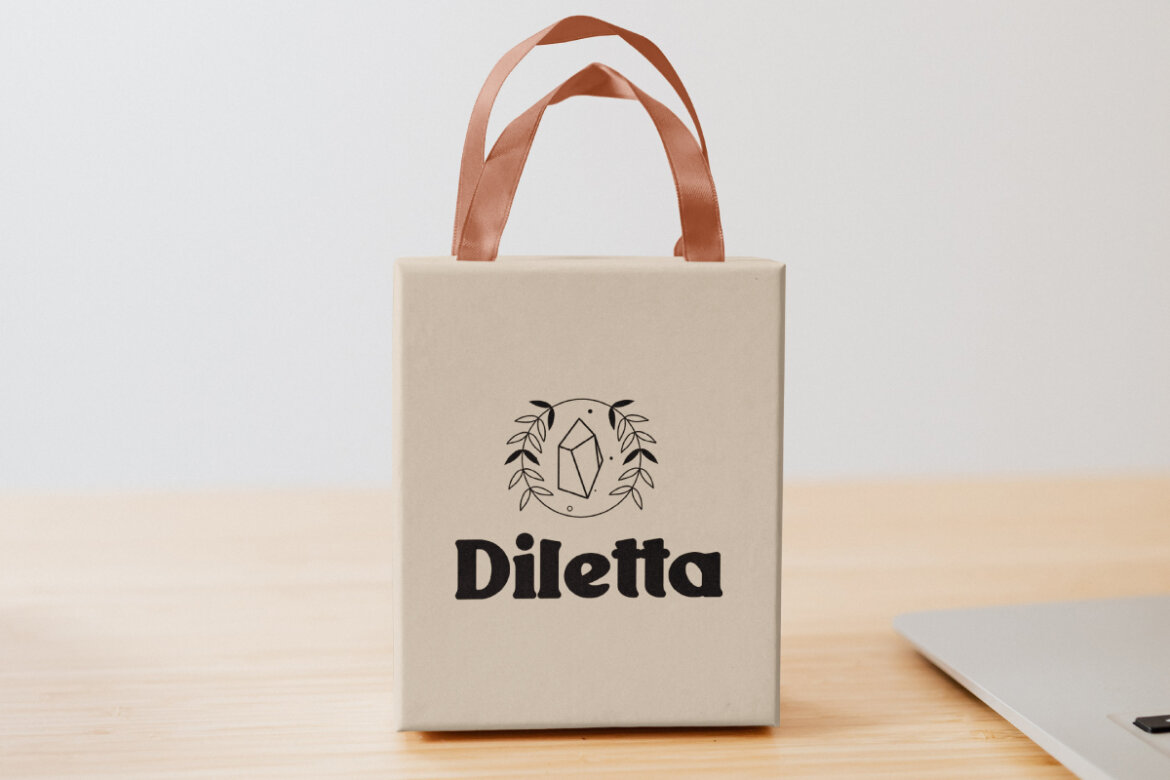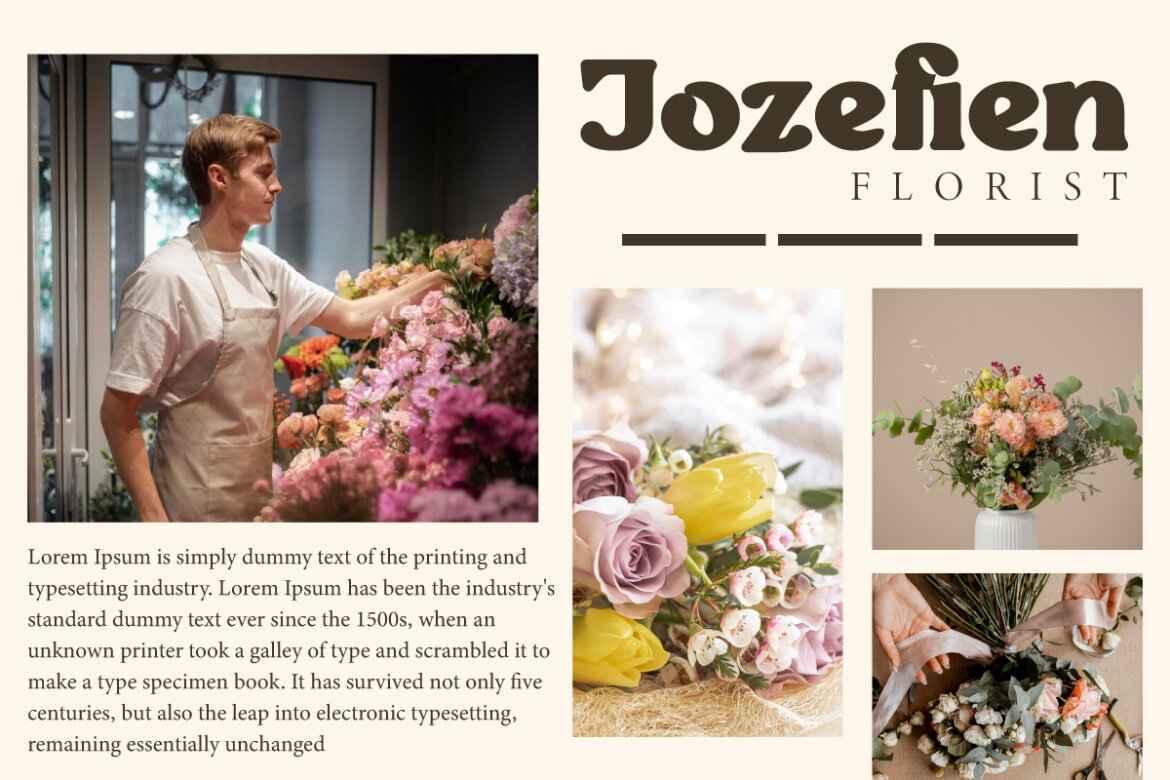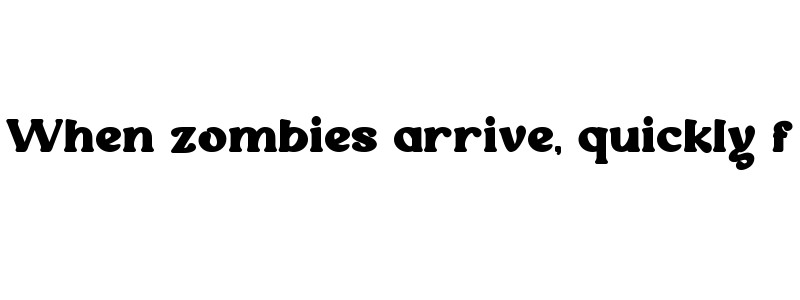
Rostia Font
Rostia
Rostia Font is a vintage serif display font created with a modern style by classic bold typeface and equipped with ligature characters that make this font more blended in retro style. This font will be suit for branding logos, brochure, embossed design, greeting card, header, heading, labels, logotype, menu, mockup, paper bag, poster, printed materials, quotes, signboard, template, title, and many more.
Introducing Rostia Display Font, a sleek and elegant typeface crafted to elevate your creative projects with a modern, sophisticated touch. Whether you’re working on branding, headlines, logos, or packaging, Rostia delivers style and readability in perfect harmony. With its clean lines and timeless appeal, Rostia is ideal for fashion brands, luxury products, editorial layouts, invitations, and digital media.
Meet Rostia Display Font, a refined and modern typeface designed to bring sophistication and clarity to your design projects. Whether you’re crafting luxury branding, editorial headlines, packaging, or digital graphics, Rostia offers the perfect balance of elegance and readability. With its sleek lines and contemporary style, Rostia stands out in any project, making it ideal for fashion labels, upscale products, invitations, and promotional materials.
Introducing Rostia Display Font, a stylish and sophisticated typeface designed to elevate your creative projects. With its clean, modern lines and elegant character shapes, Rostia is the perfect font for designers seeking to add a touch of refinement and professionalism. Ideal for branding, editorial design, fashion projects, invitations, and product packaging, Rostia offers versatility without compromising on style.
Rostia Font is a potentially strong and dominant font that is inspired by vintage letters with a careful process. It is perfect for people looking for a vintage aesthetic. This font is perfectly match for apparel, boutique, cafes, fashion, florist, graphic design, home furniture, photography, restaurant, spa salon, and many more. Its timeless elegance is perfectly designed to enhance your creative projects with its unique charm and flexibility.